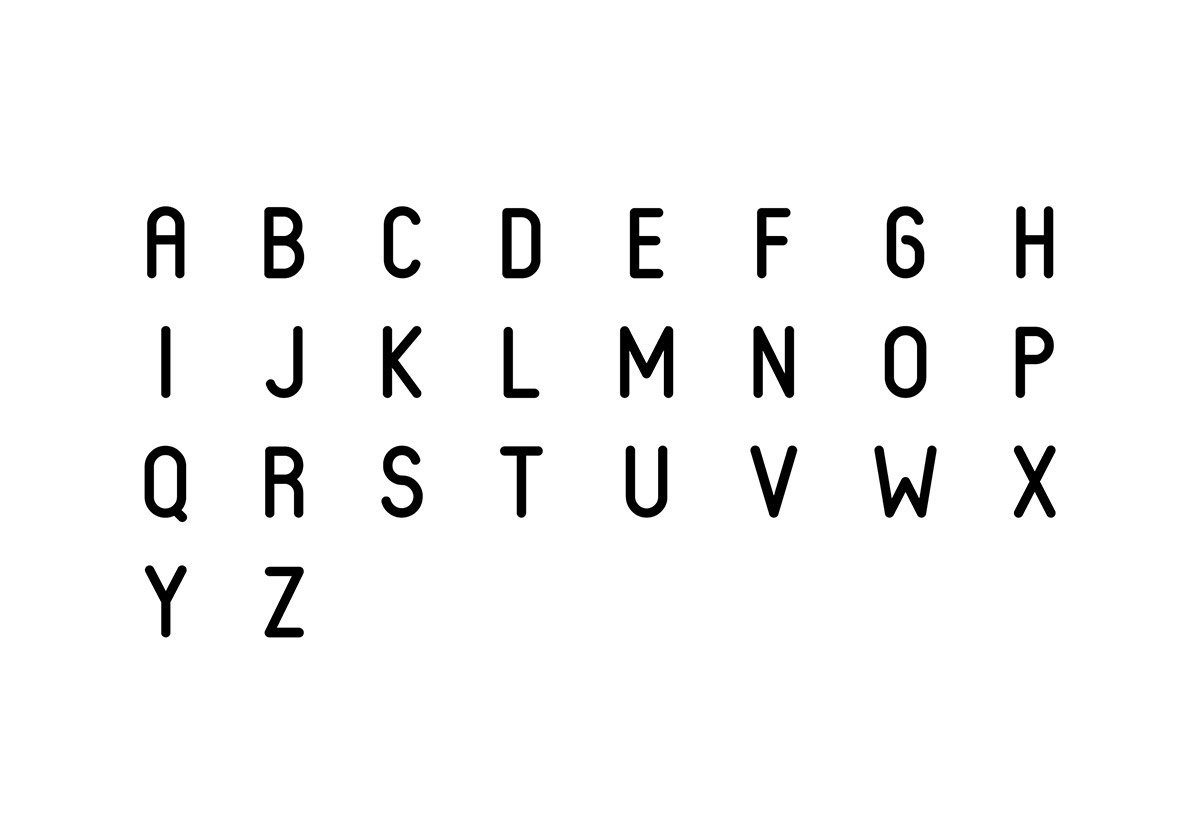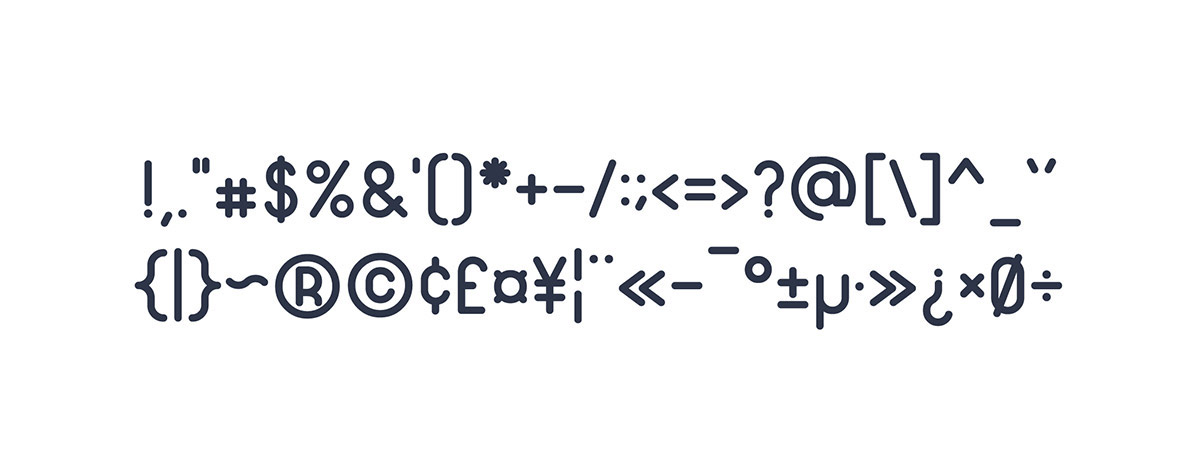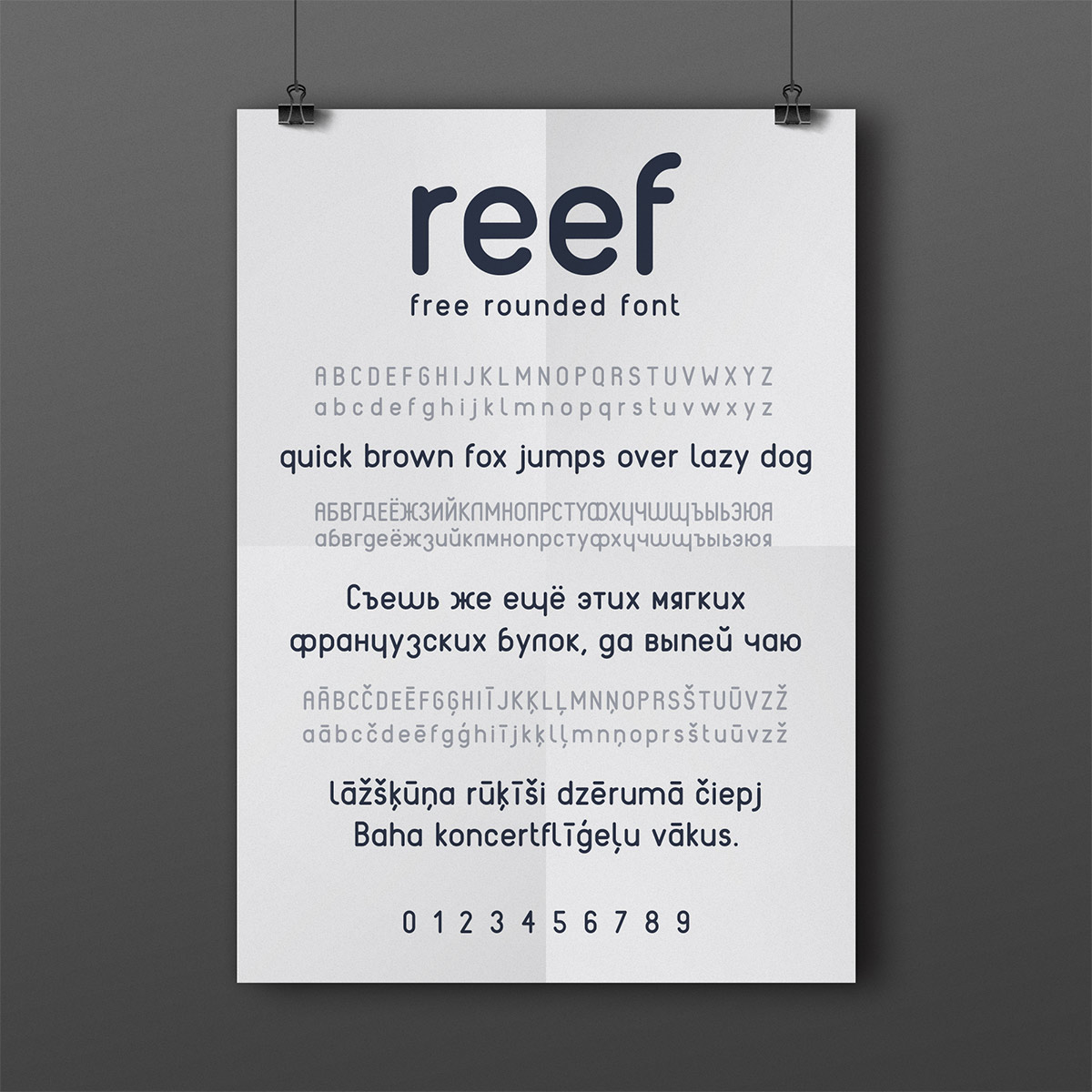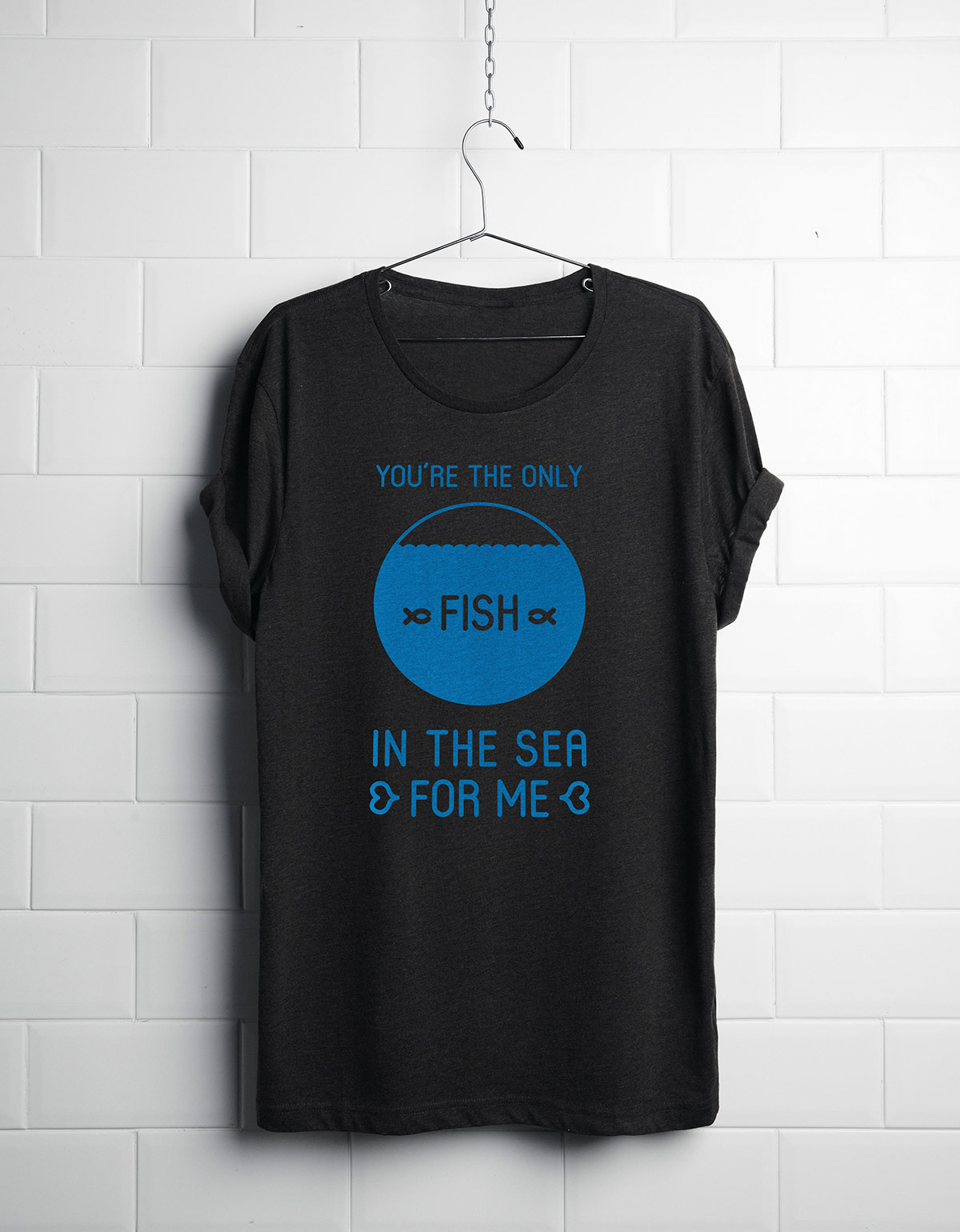
Reef Free Font
Introducing Reef. A Sans Serif font entirely new. Reef Free Font designed and shared by Wild Ones Design. Reef Free Font is free rounded font, includes 500 characters and cyrillic. With this font you can use it for multiple design projects, such as fashion magazines, billboards, ddienj photos, etc …